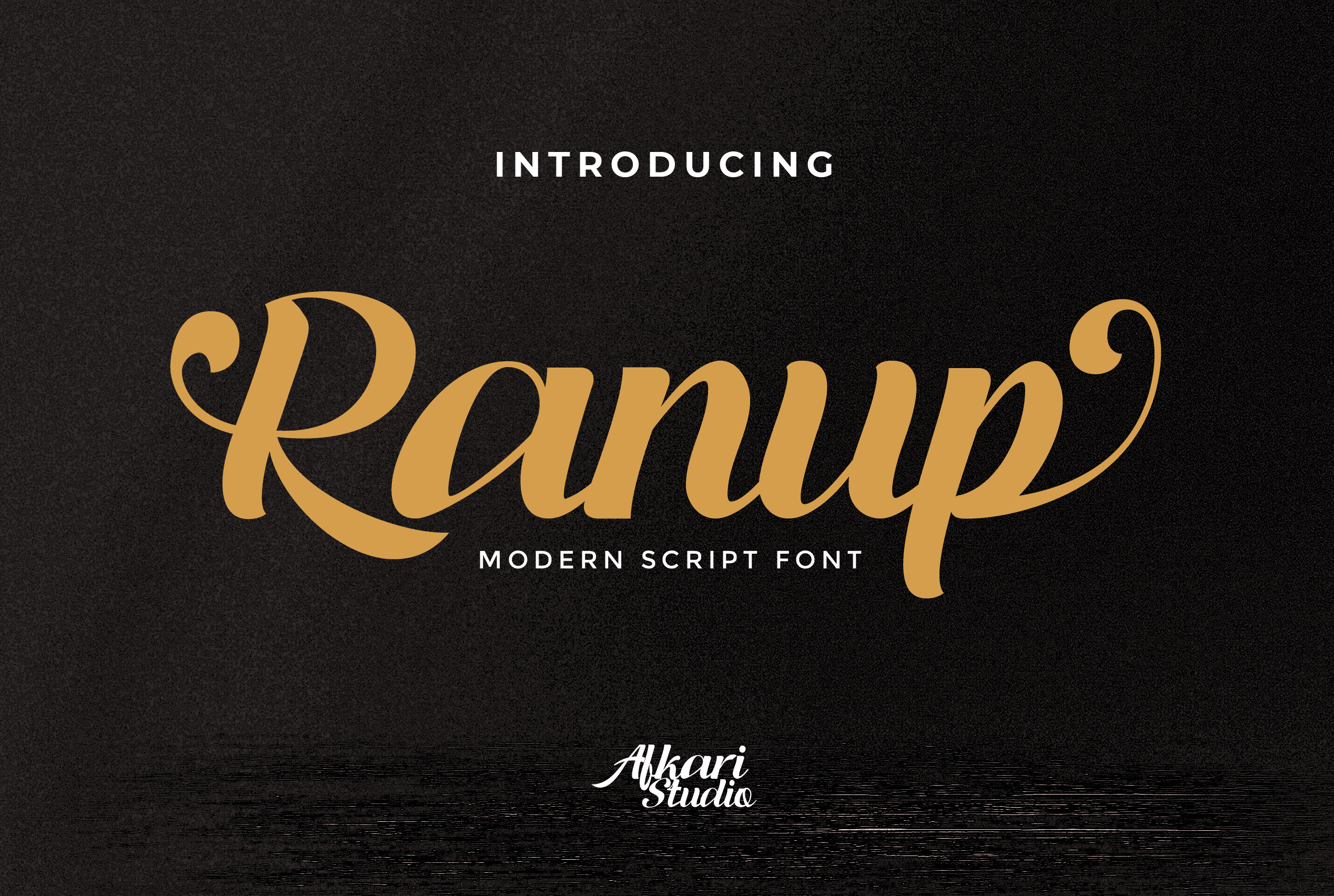
Ranup - Modern Script Font
Ranup is the latest modern Script font made as natural as possible, ranup modern script font is perfectly made to be applied in logo brands, invitations, labels, magazines title, books, greeting cards, wedding cards, packaging, fashion, makeup, stationery, novels, labels or any type of advertising purpose.
Ranup Modern Script font was simple and casual that contains Open Type features such as Stylistic Sets, Stylistic Alternates, Contextual Alternate, and ligatures.
This modern script font also contains begin, middle, and ending swash that makes it very easy to use, it's will help you to create your own customized design. Just rely on your creativity!